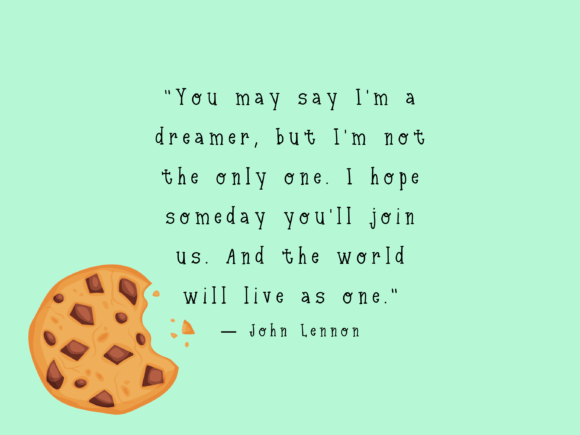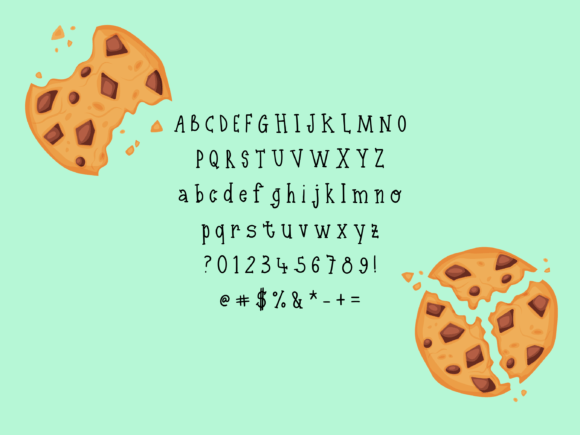
Introduction to Cookie Dough Hero Font
Introducing our delightful font, Cookie Dough Hero.
Elevate the charm and approachability of your designs with this casual and fun serif font Crafted with a touch of friendliness, Cookie Dough Hero is the perfect choice for a wide range of creative endeavors.
Key Features of Cookie Dough Hero Font
Why Choose Cookie Dough Hero Font?
Cookie Dough Hero Font offers exceptional quality and versatility, making it a valuable addition to your design toolkit. Whether you’re creating for personal projects or commercial use, Cookie Dough Hero Font delivers professional results.